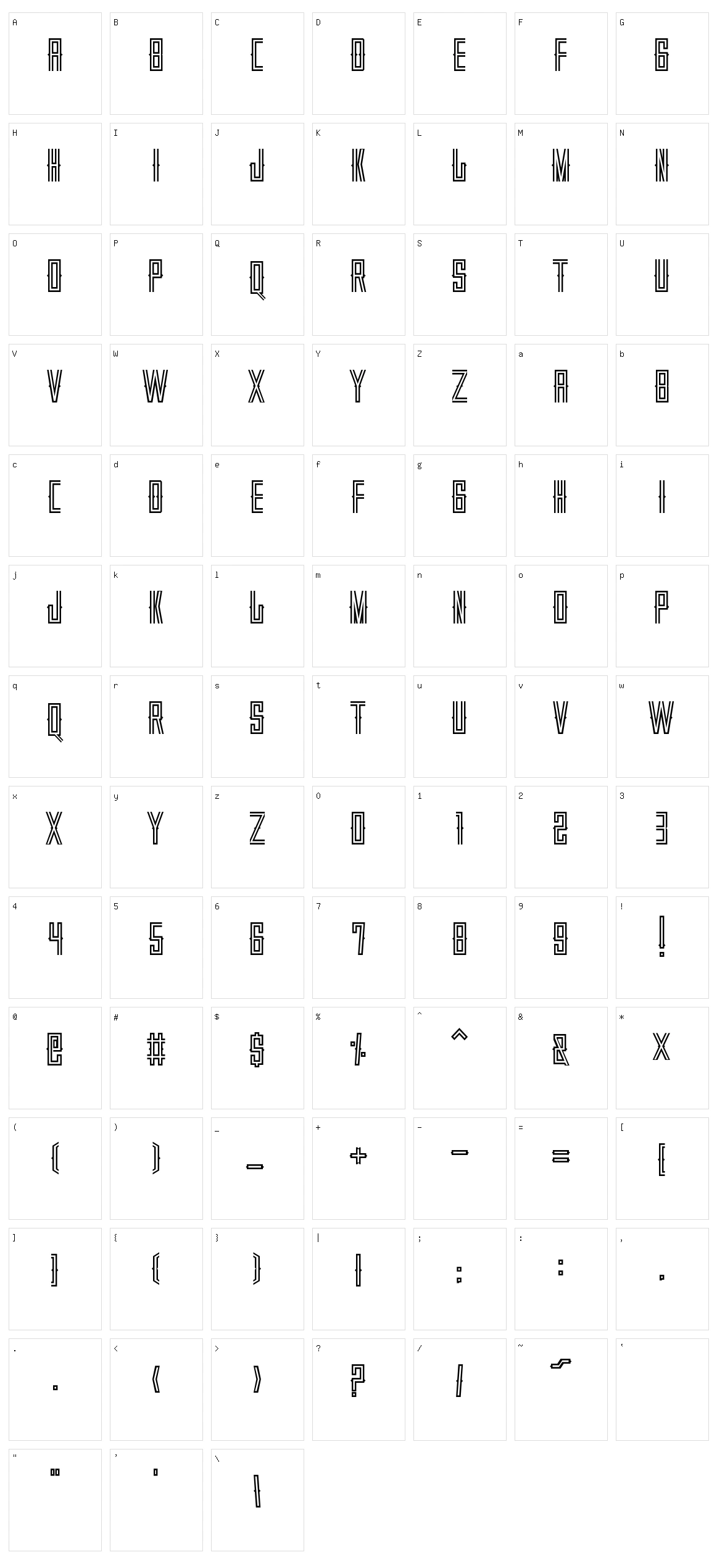
The free font Villajuarez Son Display is carefully designed by M#rm#n, showcasing a thoughtful balance of creativity and usability and falls under the Western font style. When you download the ZIP file, it contains only 9.62 KB of font files, making it lightweight and quick to download. Please review the license details below to understand permitted usage and distribution rights. If license information is not available, we recommend using this font for personal projects only or contacting the author directly for commercial usage permissions.